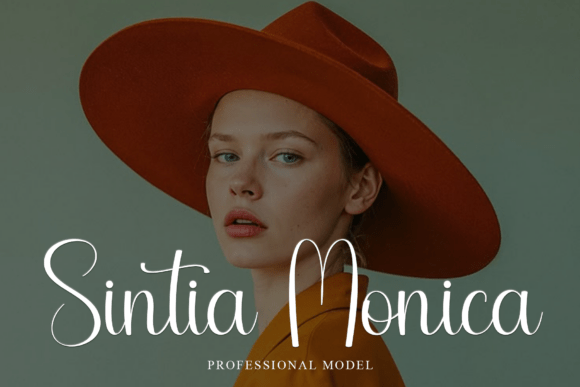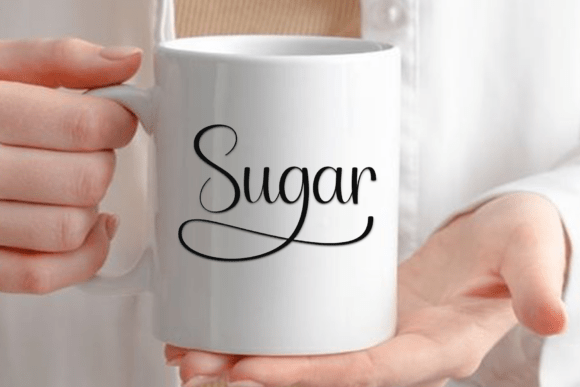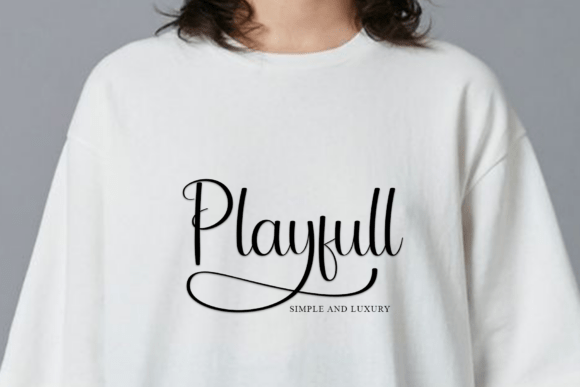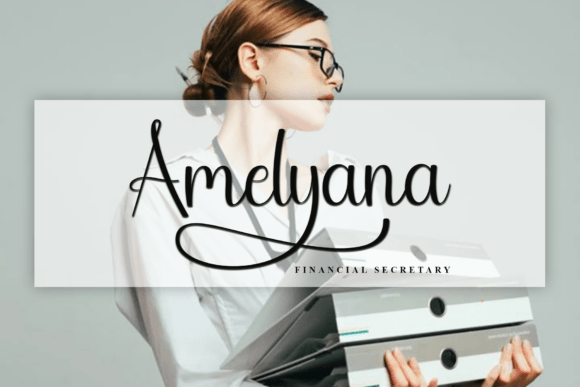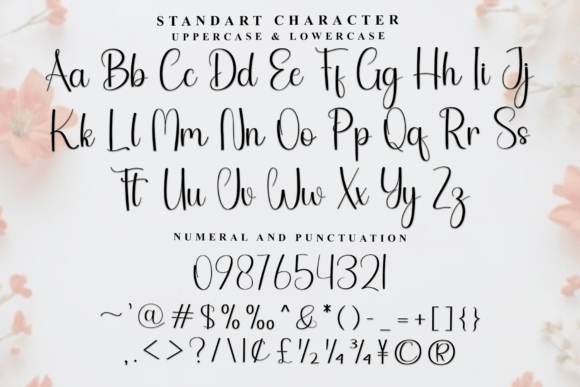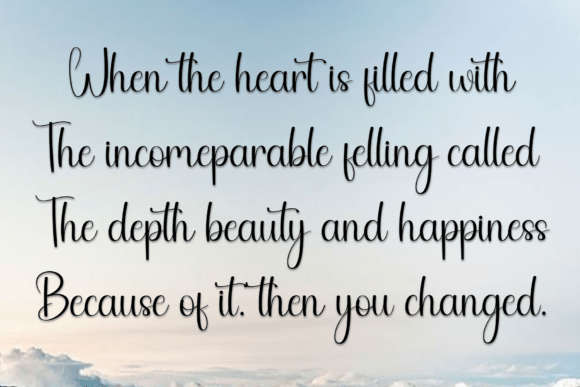
Discover the Charm of Alright Font: Elevate Your Designs with a Timeless Handwritten Style
Are you on the hunt for a font that adds a personal touch to your designs? Look no further than the Alright Font. This lovely and timeless handwritten font is making waves in the design community, and for good reason. Its unique charm and character make it the perfect choice for creating eye-catching logos, branding, and quotes that stand out from the crowd.
Handwritten fonts have a way of adding a touch of warmth and personality to any design. They evoke feelings of nostalgia and authenticity, making them a popular choice for designers looking to create a lasting impression. The Alright Font takes this to the next level with its beautiful, flowing script that is both elegant and approachable.
What Makes Alright Font So Special?
So, what sets the Alright Font apart from other handwritten fonts on the market? For starters, every letter has a unique and beautiful touch that makes it truly one-of-a-kind. The font’s creator has poured their heart and soul into crafting a font that is not only aesthetically pleasing but also highly versatile.
Whether you’re looking to create a stunning logo, craft a compelling brand identity, or add a touch of personality to your quotes and phrases, the Alright Font is the perfect choice. Its timeless design ensures that your work will remain relevant for years to come, and its handcrafted nature guarantees a level of authenticity that is hard to replicate with more generic fonts.
The Alright Font is a dream come true for designers and crafters alike. Its wide range of applications makes it an incredibly valuable addition to any design toolkit. Here are just a few ways you can use the Alright Font to elevate your work:
- Logo Design: Create a lasting impression with a custom logo that showcases your brand’s personality and style.
- Branding: Develop a cohesive brand identity that sets you apart from the competition and resonates with your target audience.
- Quotes and Phrases: Add a touch of elegance and sophistication to your quotes and phrases, making them perfect for social media, marketing materials, and more.
Why Choose Alright Font?
With so many fonts on the market, it can be hard to know which one to choose. Here are just a few reasons why the Alright Font stands out from the crowd:
- Unique and Beautiful: Every letter has a unique and beautiful touch that makes it truly one-of-a-kind.
- Timeless Design: The Alright Font’s timeless design ensures that your work will remain relevant for years to come.
- Highly Versatile: Perfect for a wide range of applications, from logos and branding to quotes and phrases.
- Handcrafted with Love: Each letter has been carefully crafted with love and attention to detail, ensuring a level of authenticity that is hard to replicate.
If you’re looking for a font that will take your designs to the next level, look no further than the Alright Font. Its unique charm, timeless design, and versatility make it the perfect choice for designers and crafters alike. Say goodbye to generic fonts and hello to a world of creative possibility with the Alright Font.
So why wait? Discover the charm of the Alright Font today and start creating eye-catching logos, branding, and quotes that leave a lasting impression.